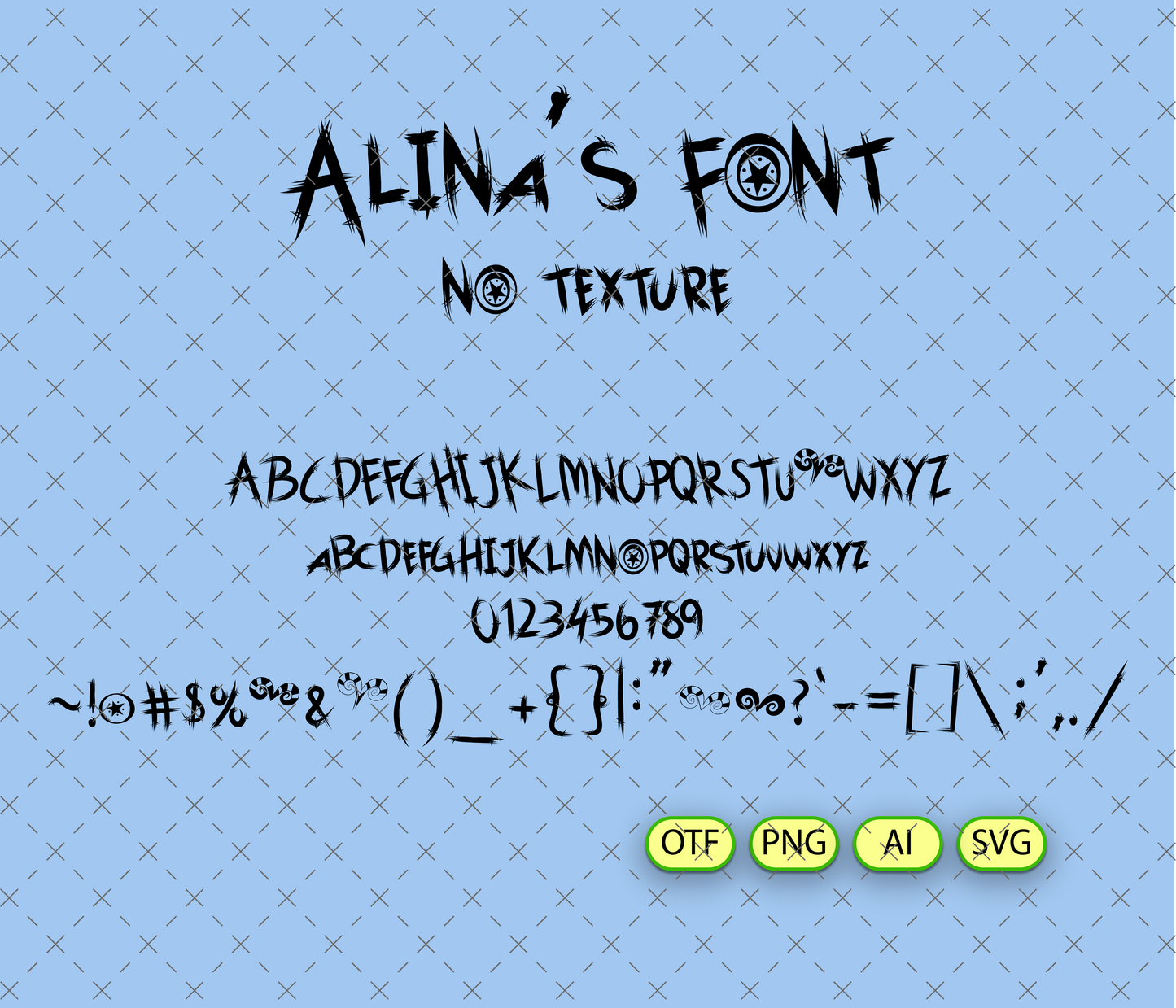
Demon Agency Gothic Font
Step into the sinister glamour of underworld mischief with our Demon Agency Gothic Font, capturing the essence of darkly comedic infernal antics and gothic horror storytelling. Perfect for supernatural animation enthusiasts, horror event coordinators, indie media producers, and alternative design specialists, this font brings the striking, macabre character of underworld comedy tales to your projects. Create attention-grabbing invitations, commercial goods, or web content with the wickedly playful presence of demonic misfit narratives.
Clean Bold Typography for Dark Design & Horror-Comedy Projects
Our Demon Agency Gothic Font features commanding, stylized letterforms with crisp, editable outlines reflecting the world of darkly humorous infernal figures and chaotic underworld environments. Unlike the textured version, this clean font lets you apply your own colors, effects, and finishes — total creative freedom.
- Event Promotions: Create attention-grabbing invitations, displays, and promotional materials for gothic celebrations, supernatural animation fan gatherings, and social events that capture the spirit of horror-comedy entertainment
- Merchandise Design: Perfect for apparel, wall prints, adhesive graphics, and collectibles that showcase the striking aesthetic of infernal chaos themes — customize colors to match any palette
- Digital Media: Enhance internet platforms, content channels, and social networks with dark humorous header designs and imagery that express the comedy of demonic misadventures
- Creative Content: Add signature flair to fan illustrations, character artwork, and imaginative projects inspired by underworld comedy chronicles
- Personal Projects: Bring gothic vitality to memory albums, handcrafted items, and living space decorations inspired by the world of darkly charming infernal figures
Our font pays tribute to the world of gothic horror-comedy and decade-spanning dark animation culture, empowering your projects with its striking and wickedly playful character. Whether crafting supporter materials, designing macabre products, or adding a darkly humorous touch to personal projects, this font communicates the spirited essence of infernal entertainment. Ready to inject sinister flair into your creations? This font is your key to attention-grabbing, impactful design.